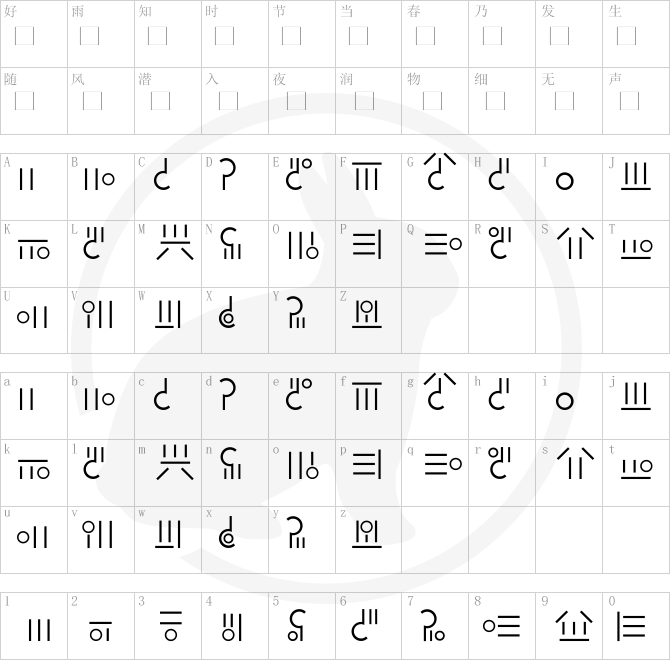
• Font Name:Gaim
Gaim.ttf is a very beautiful artistic font, Gaim.ttf is widely used in the design and printing of various books and pictures,Gaim.ttf has a strong visual impact,Gaim.ttf is a commonly used font in newspapers, magazines and books, and is used in posters, e-commerce Poster design, store design, logo design, font design and other fields.Gaim.